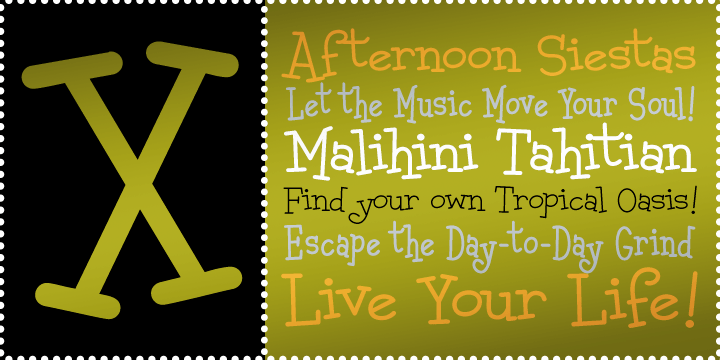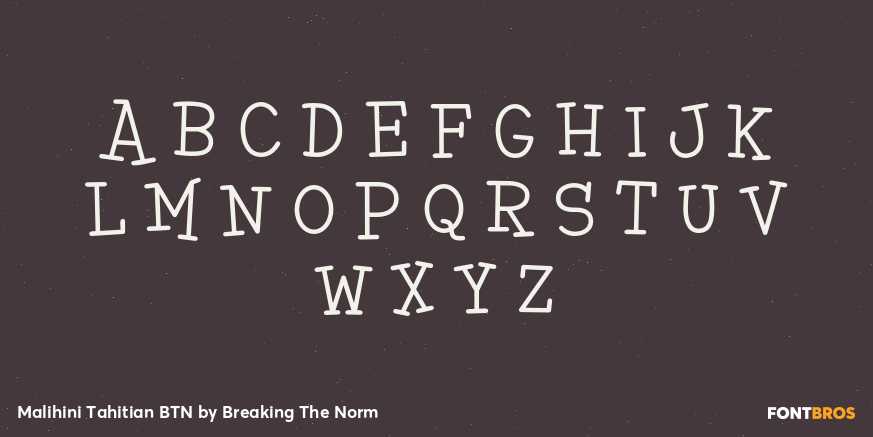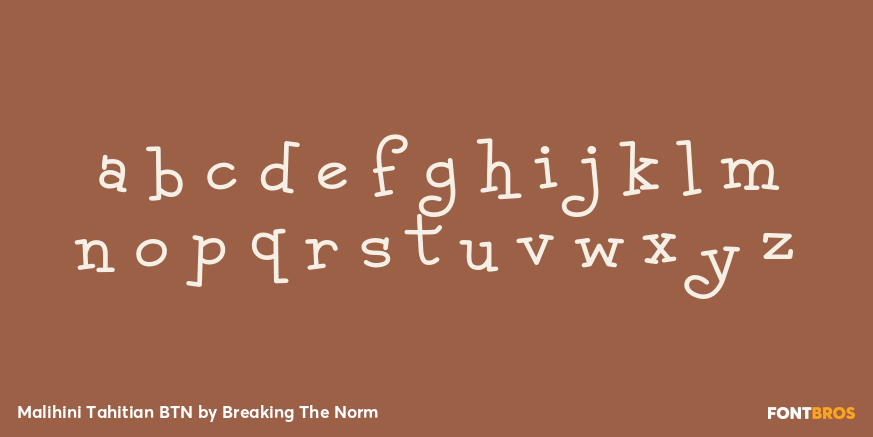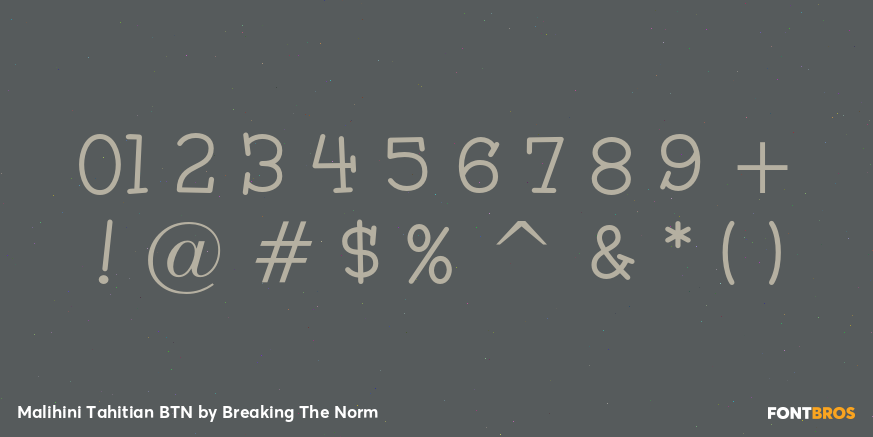
Malihini Tahitian BTN
Font Family by Breaking The Norm
Malihini Tahitian BTN is a playful tropical display family with a relaxed, rounded personality. Created as the softer counterpart to Malihini Cuban, it brings an easygoing island feel to the page with warmer curves and a more casual overall tone. The family is well suited for resort branding, beach promotions, restaurant design, travel graphics, packaging, signage, posters, and summer-themed projects that call for a friendly vacation spirit. With Light, Regular, Bold, and Condensed styles, Malihini Tahitian BTN offers flexible display options that feel cheerful, approachable, and full of tropical charm.